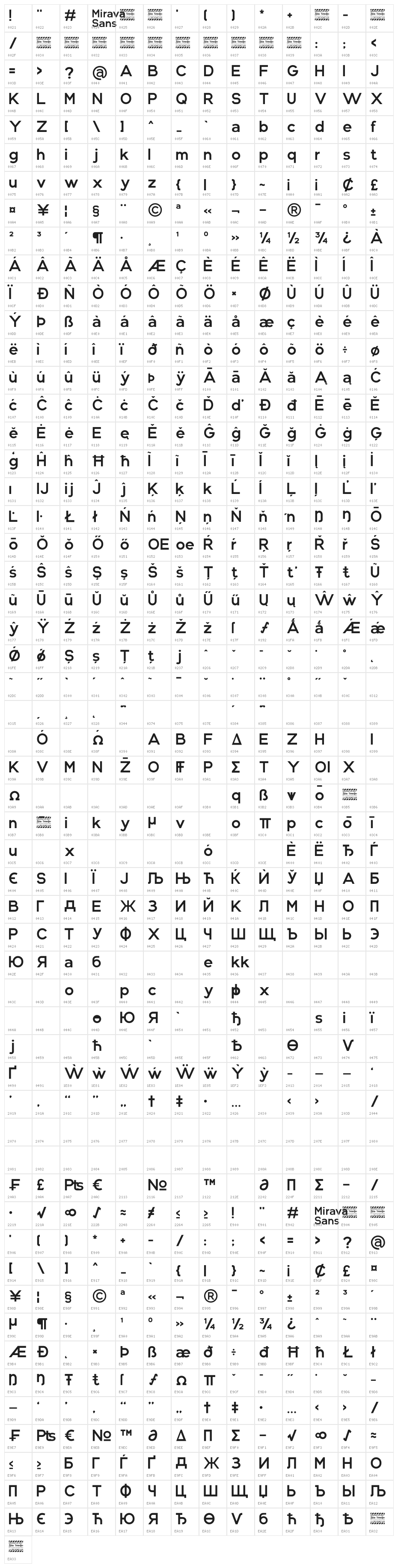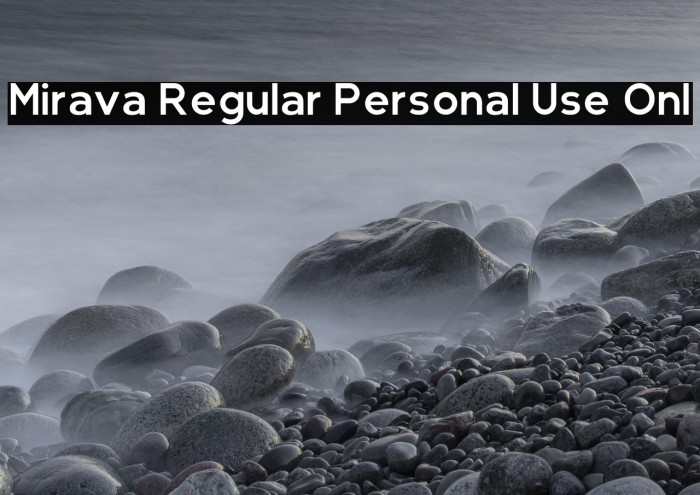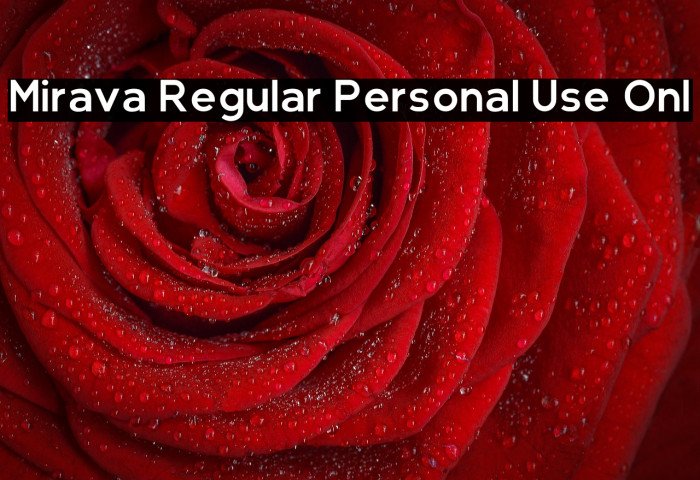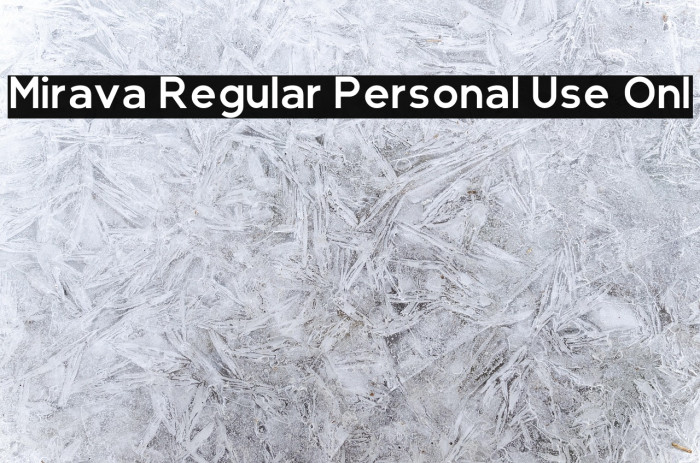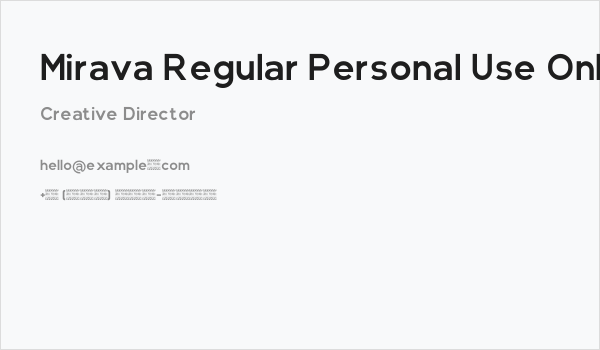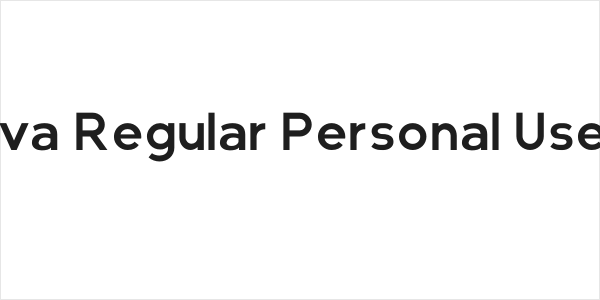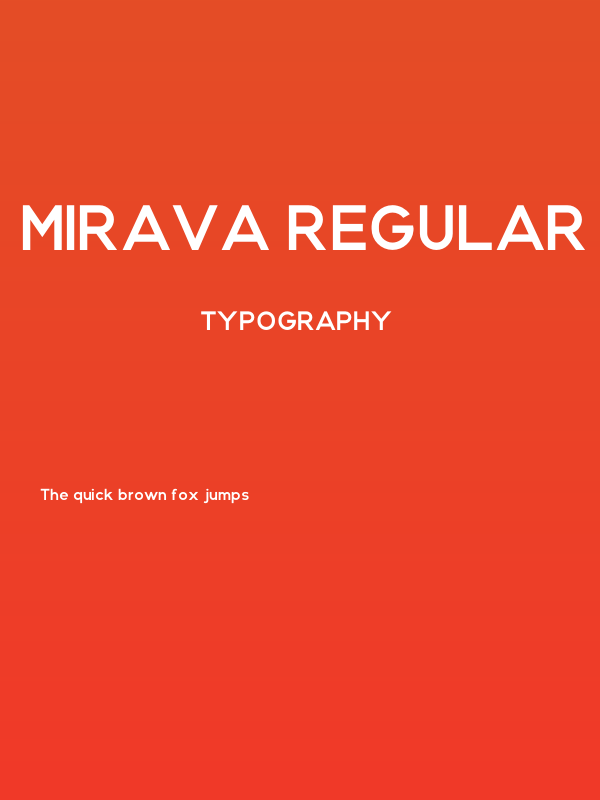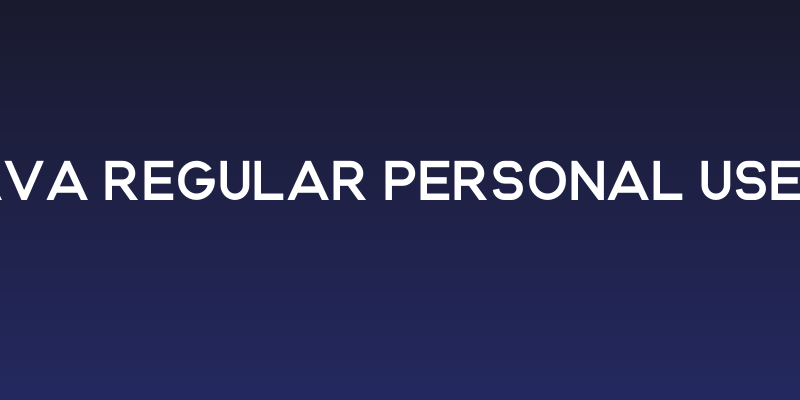
Mirava Regular Personal Use Onl Font
Mirava Regular Personal Use Onl Description
This font features a clean and modern sans-serif design, characterized by its geometric shapes and balanced proportions. The uppercase letters are bold and assertive, while the lowercase letters maintain a consistent weight, offering a harmonious look. The numerals are clear and easy to read, making them suitable for various applications. Special characters are included, providing versatility for different uses. The overall style is sleek and contemporary, making it ideal for digital and print media.
| Proposed Projects | Ideal for branding, web design, advertising, and editorial projects. |